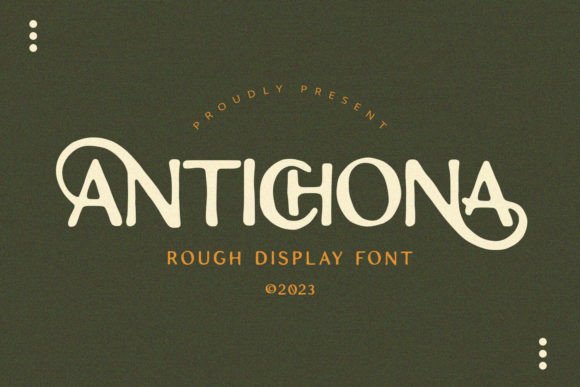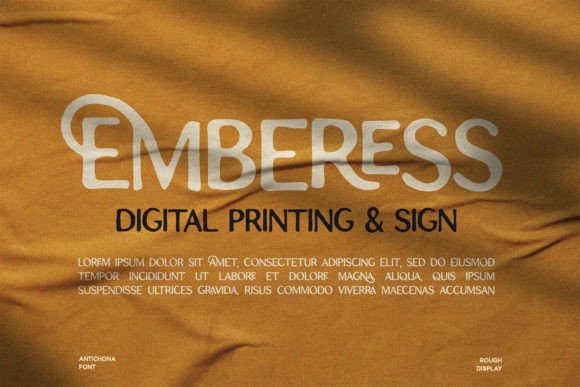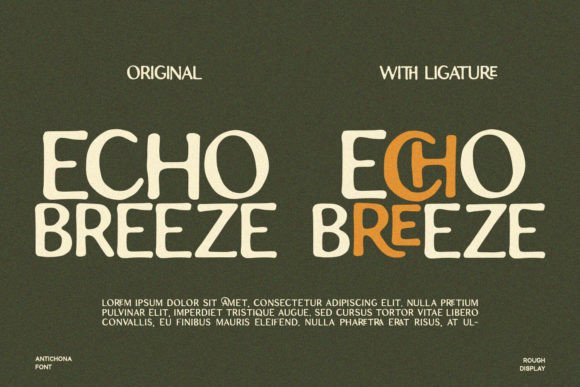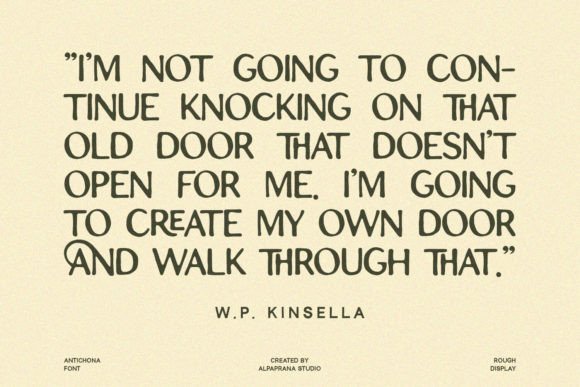
Antichona Font: Groovy Retro Display Font for Logo Design & Headlines
About the Antichona Font
Get ready to be inspired by Antichona Font, a fresh and dynamic typeface for modern creators. Antichona, a retro sans-serif font, effortlessly captures the essence of bygone eras with its stylish and timeless design. Clean lines and subtle curves evoke a sense of nostalgia, while the modern twist adds contemporary allure. Perfect for projects seeking a harmonious blend of vintage and chic aesthetics.
Antichona excels in headline use, logos, and short-form text on packaging or posters where its retro-chic personality shines. Its strong character makes it less suitable for body copy or lengthy paragraphs; legibility suffers at smaller sizes. Avoid using it in user interfaces where clear, easily-scanned text is paramount.
The font’s overall personality is stylish and confident, yet approachable. It works well for brands aiming for a vintage-inspired yet modern feel, such as fashion, coffee shops, or lifestyle products.
Pairing Antichona with a clean sans-serif like Open Sans for body text provides excellent contrast and readability. For a more playful approach, consider a script font such as Great Vibes; for a sophisticated feel, a classic serif like Garamond would complement its elegant curves.
Antichona Font Usage Examples
Antichona Font Example